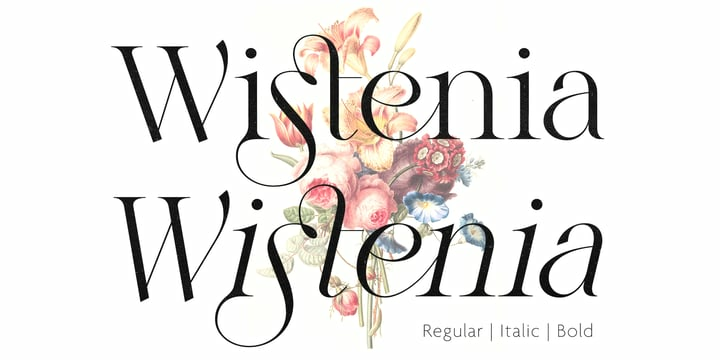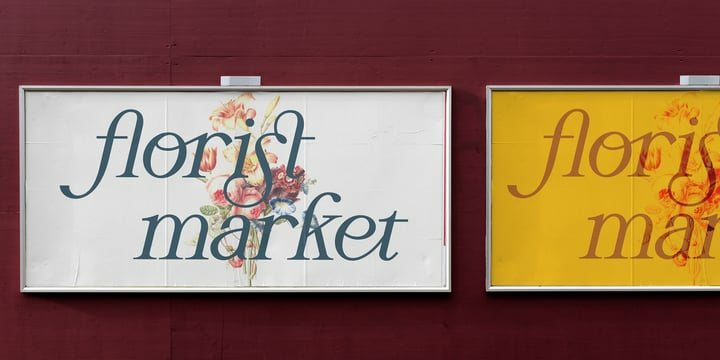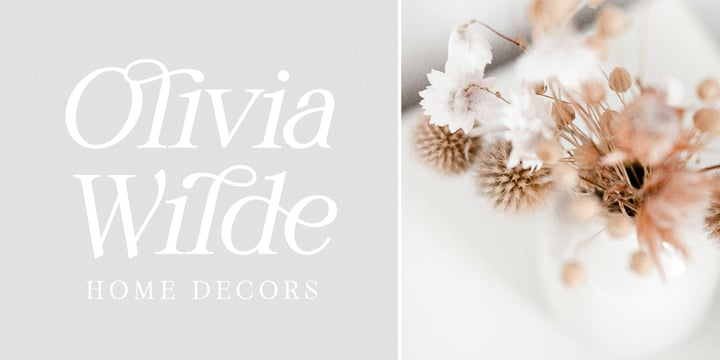
Wistenia Font Family
Wistenia Font FamilyWistenia is a stylish ligature rich typeface inspired by fashion magazines and fragrance brands. Wistenia contains more than 80 LIGATURES.
Wistenia Typeface is made mainly for short headlines and titles, but it looks great in advertising, vintage mood board, branding, logotypes, packaging, titles, editorial design and modern and vintage design.